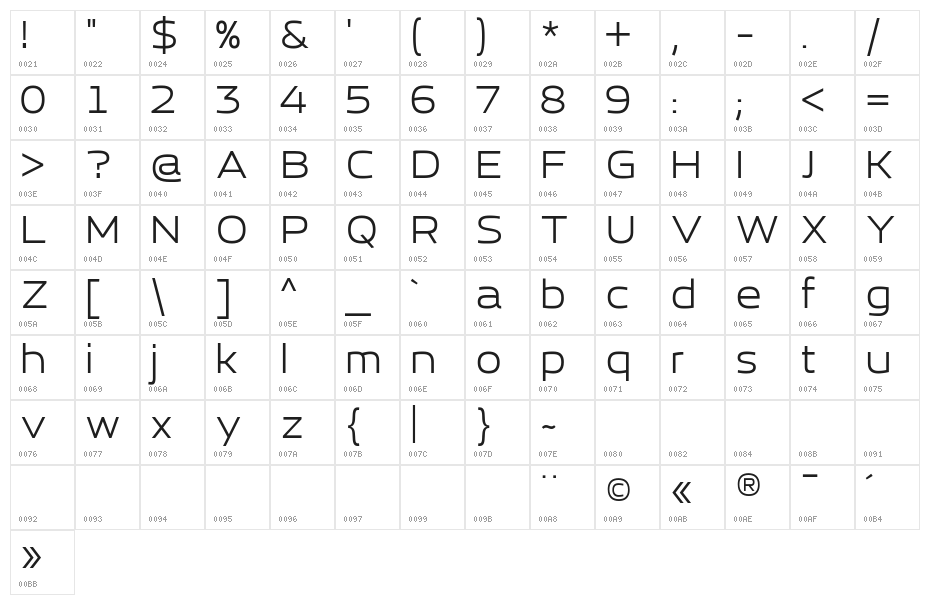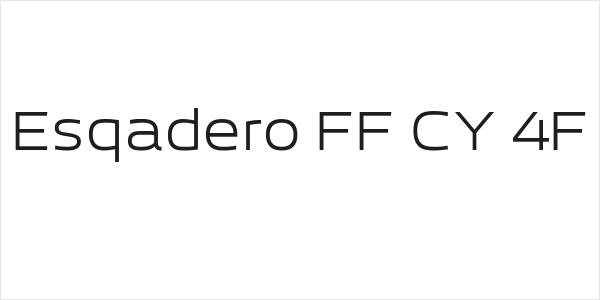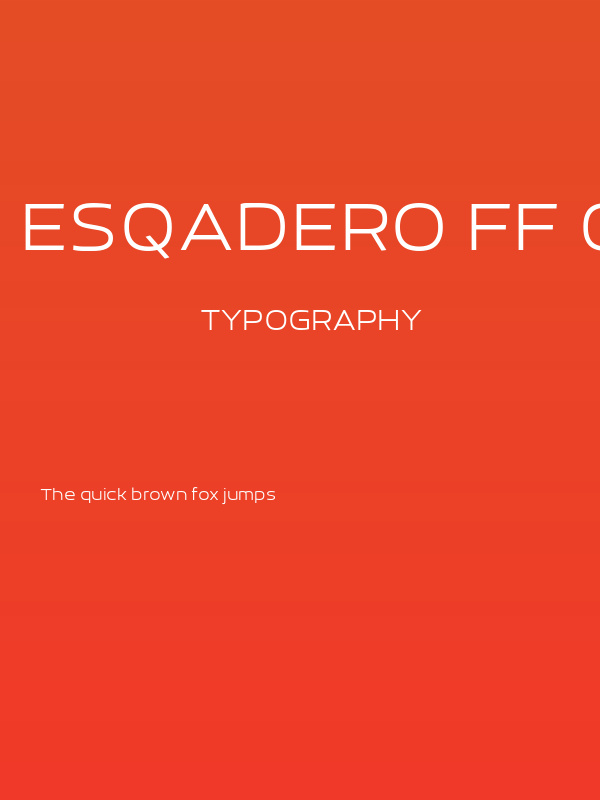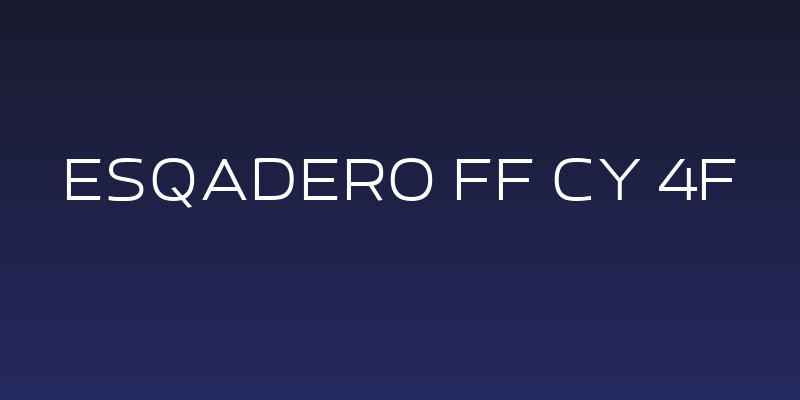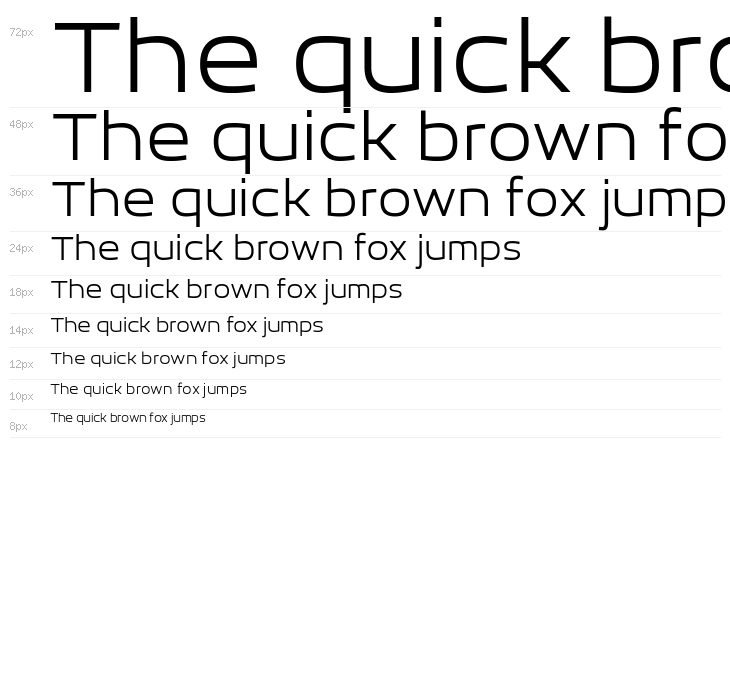
Esqadero FF CY 4F Font
Esqadero FF CY 4F Description
This font features a clean and modern sans-serif design with a geometric structure. The characters are well-balanced, with consistent stroke widths that convey a sense of stability and clarity. The uppercase letters are bold and assertive, while the lowercase letters maintain a friendly and approachable appearance. The numerals are straightforward and align well with the overall style, making them easy to read. Special characters are included, providing versatility for various applications. The font's simplicity and precision make it suitable for both digital and print media.
| Proposed Projects | Ideal for branding, web design, corporate materials, and editorial layouts. |